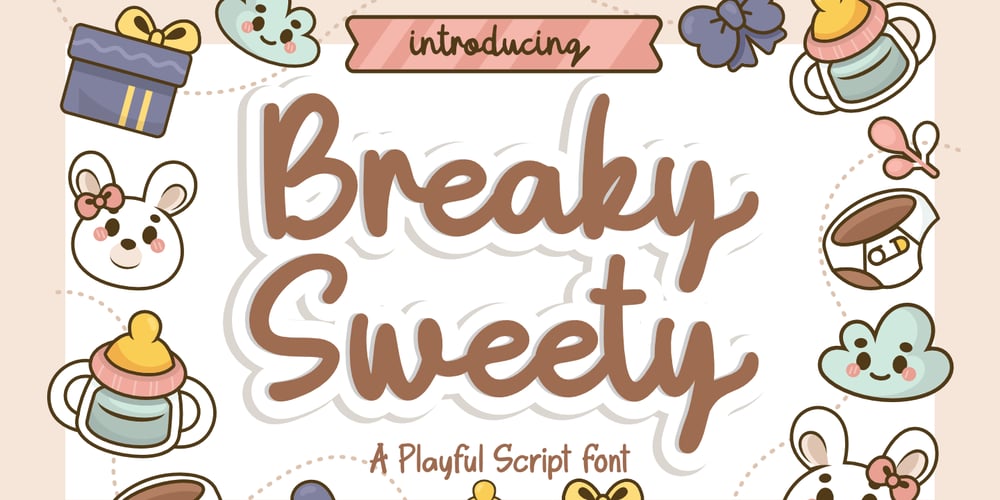
Breaky Sweety Font Family was designed by Bayu Aji Fais Mursid and published by Bayuktx. Breaky Sweety contains 1 styles and family package options. Hello,Thank you for visiting my products, we will give you the best choice.Breaky Sweety a Playful Script Font, This font is made with a high premium quality level which you can use as flyers, quotes, posters, banners, packaging, merchandise, logotypes and much more.FEATURES :* Uppercase* Lowercase* Number* Punctuation* Multilingual* PUA Encode* OpentypeFILES INCLUDED :* Breaky SweetyThank you